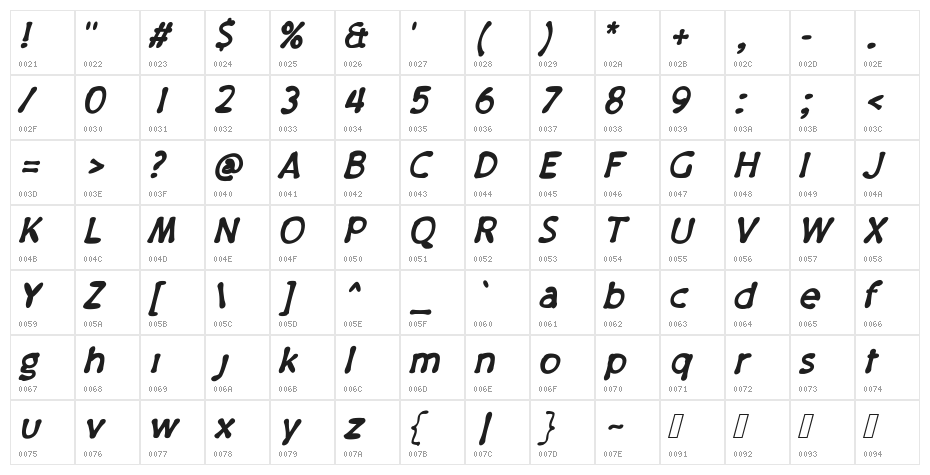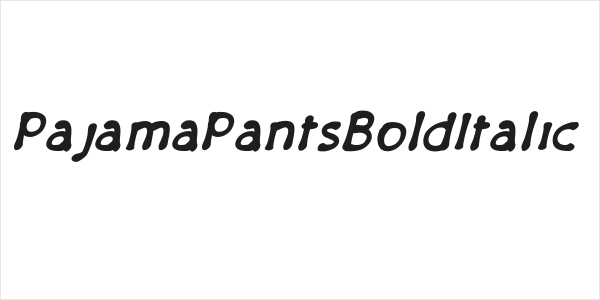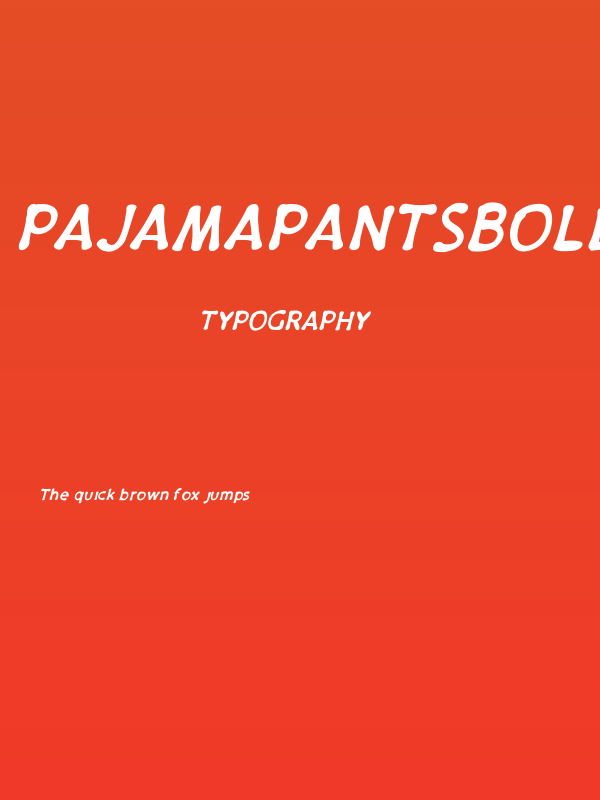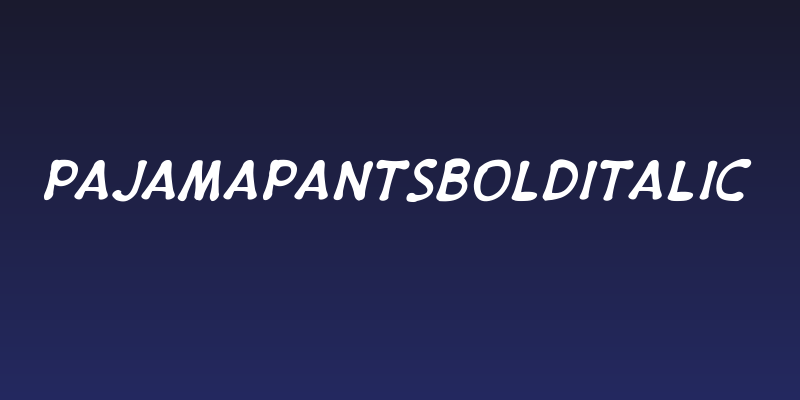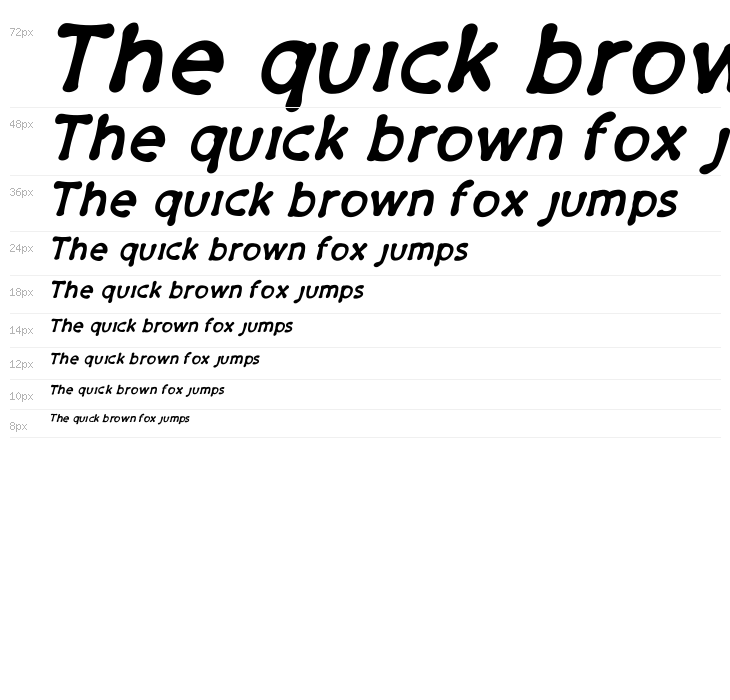
PajamaPantsBoldItalic Font
PajamaPantsBoldItalic Description
This playful and bold font features a handwritten style with a unique flair. The letters are slightly slanted, giving it an italic appearance, and the strokes are thick and consistent, providing a bold presence. The characters have a rounded, smooth finish, which adds to the casual and friendly vibe. The numbers and special characters maintain the same playful style, ensuring consistency across all elements. This font is perfect for projects that require a touch of whimsy and personality.
| Proposed Projects | Ideal for children's books, playful branding, casual invitations, and creative posters. |